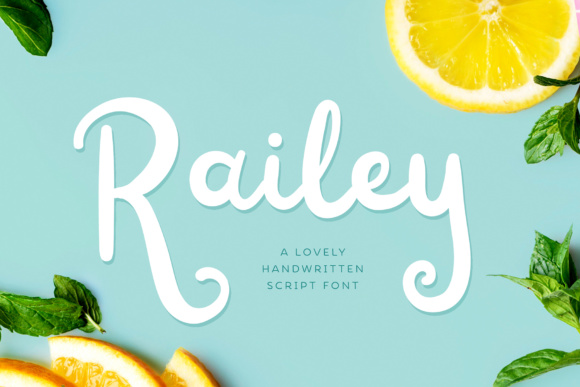
Immerse yourself in the enchanting world of Railey Script - an exquisite handwritten font crafted with elegance and charm. This modern calligraphy adds a touch of personal flair to your creative endeavors, transforming words into works of art.
With Railey Script, you have the power to create designs that capture the essence of your heartfelt messages. Whether it's a heartfelt quote for your home décor, an unforgettable wedding invitation that reflects your love story, or a captivating blog header that draws readers in, Railey Script is your trusted companion, helping you leave a lasting impression.
Unleash your creativity and explore the boundless possibilities that Railey Script holds. Design eye-catching t-shirts that speak to your individuality, or craft posters that ignite inspiration with its graceful strokes. The versatility of Railey Script knows no limits, enabling you to transform your ideas into visually stunning masterpieces.
Railey Script is the key to unlocking your artistic potential. Its meticulously crafted characters dance across the page, inviting you to express your thoughts and emotions with a touch of elegance. Discover the endless charm of Railey Script today and elevate your designs to extraordinary heights!